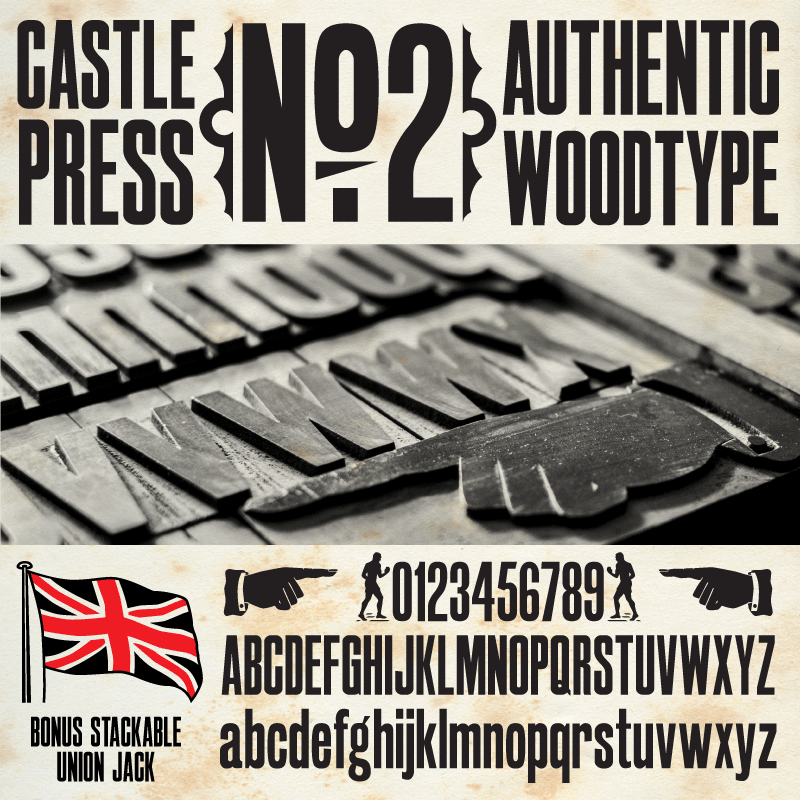
Font name: | Castle Press No2 |
Author: | Pilaster Davy |
Note by Pilaster Davy | |
Castle Press No. 2 is a condensed gothic font and the second redrawn from original wood type found in the Castle Press print works, after it’s closure. Castle Press No. 2 is close to the original but with a few tweaks. Where I have added glyphs, I have tried to stay as true to the feel of the original as possible. Limited language support, not present in the original is included. Ornaments, catchwords and extras, found elsewhere in the wood type collection are available through the glyphs palette or Character Map depending on OS or app you’re using (refer to your OS or app documentation for details). Includes a stackable 2 colour Union Jack found in a Delittle sample book in the collection (just as an experiment) and a separate ‘quick set’ border font inspired by a Delittle wood type border. Read the pdf for instructions and examples. Because I have recreated Castle Press No. 2 to rescue it from a dusty drawer & an uncertain fate and to preserve it for the future, it is served free for personal use and ‘as is’ . If you like Castle Press No. 2, please feel free to make a ‘domestic brew’ sized donation to the ‘buy the author a beer fund’ using the donate button. For commercial use, should you find one for it, a donation would be good manners! Enjoy! Pil |